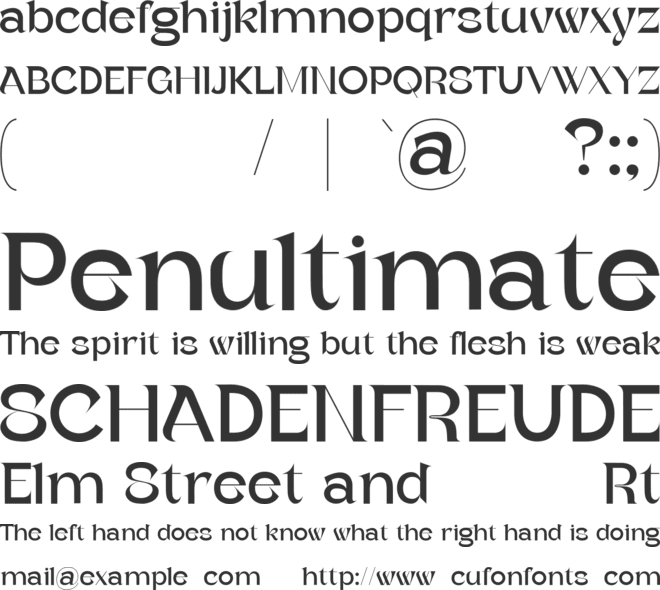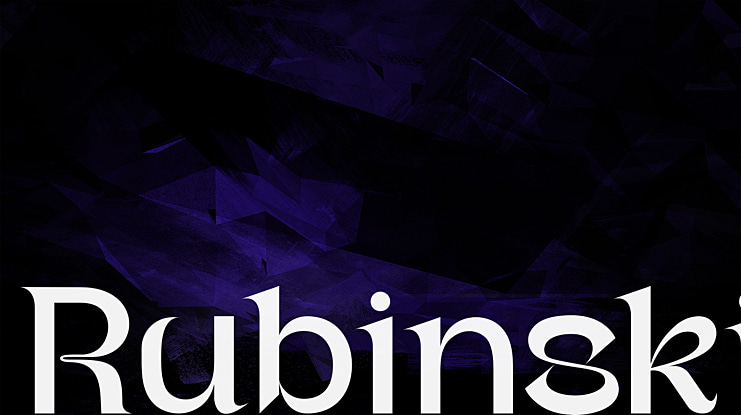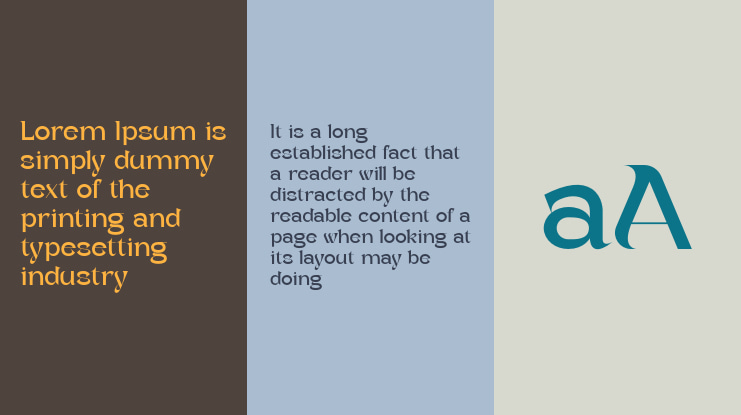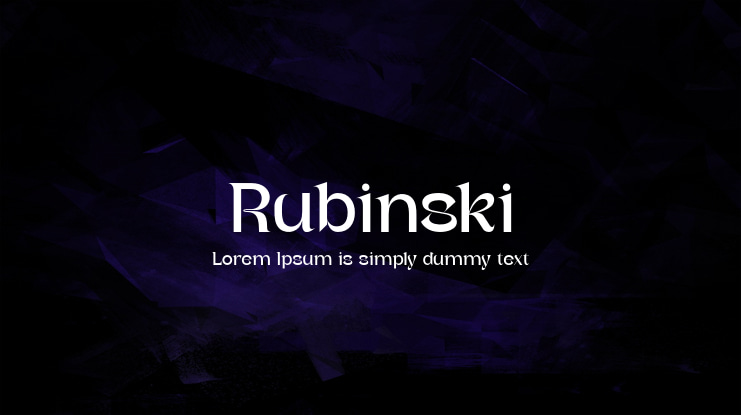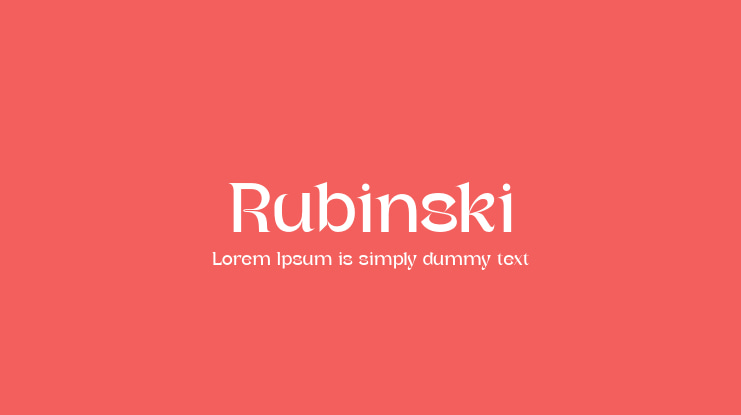
Rubinski Font
It’s an elegant sans serif font that look classy. This font is stunning, with a clean and attractive typeface that has been skillfully sculpted, and it will readily match a variety of projects that demand a unique touch. You’ll appreciate the results if you use it confidently in your tasks. Elegant logos, branding, travel promotions, layout magazines, beauty items, product packaging, quotes, or simply as a stunning text overlay onto any backdrop image are all possible with this typeface.